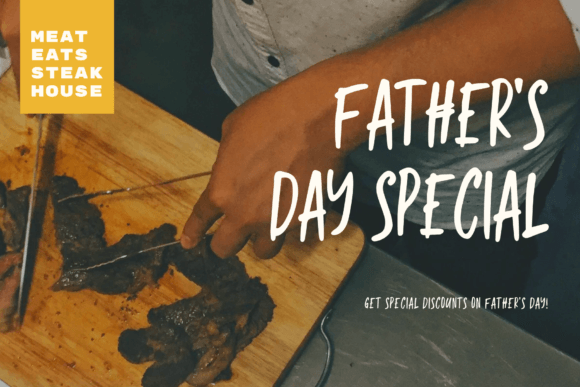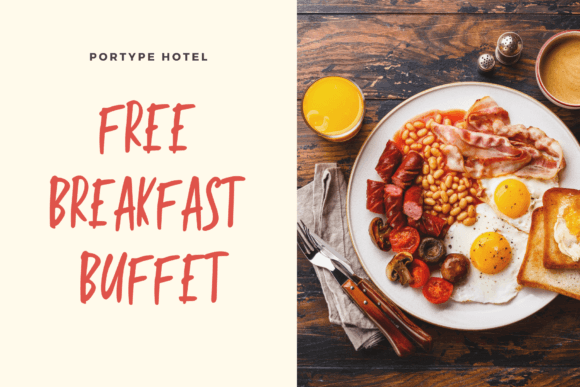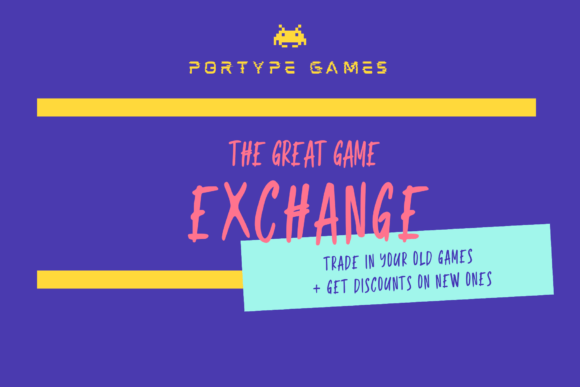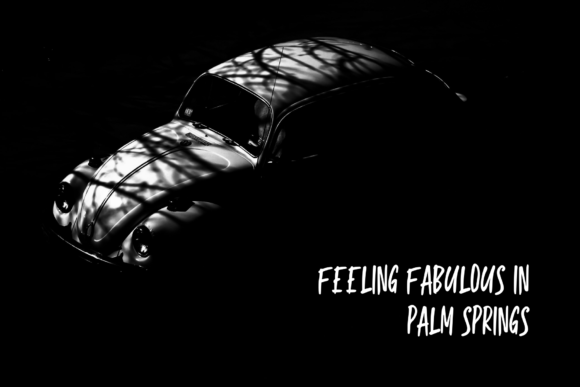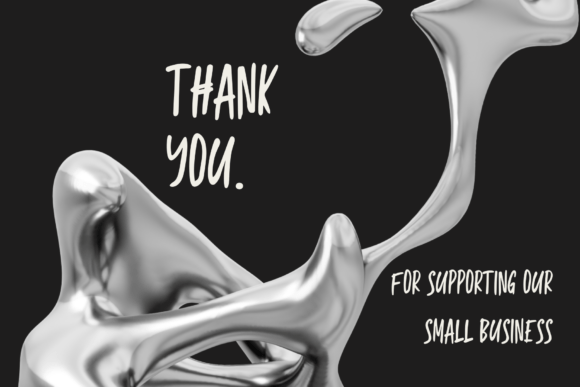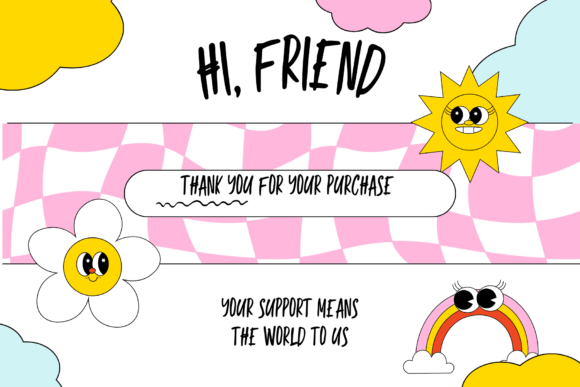
Discover the Unique Charm of Biang Kerok Font: A Handwritten Style Typeface
In the world of typography, fonts play a crucial role in conveying messages, expressing emotions, and creating visual identities. For designers and crafters seeking a typeface that embodies creativity, informality, and a dash of personality, Biang Kerok Font is an excellent choice. This handwritten style font features a unique and bold character that reflects a dynamic and passionate personality, making it perfect for a variety of creative projects.
The Distinctive Characteristics of Biang Kerok Typeface
Biang Kerok Typeface stands out with its distinctive handwritten style, characterized by bold lines, fluid strokes, and a charming irregularity. Each letter is crafted with a personal touch, giving the font a one-of-a-kind feel that is both eccentric and engaging. The unique character of Biang Kerok makes it an excellent choice for designs that require a touch of personality and creativity.
Suitable Applications for Biang Kerok Font
Biang Kerok Font is incredibly versatile, making it suitable for a wide range of creative projects. Some of the ideal applications for this typeface include:
- Posters and Flyers: Add a bold and eye-catching touch to your posters and flyers with Biang Kerok Font, making your message stand out and grab attention.
- Logo Design: Create a unique and memorable logo for your brand with Biang Kerok Typeface, which offers a personalized and eccentric feel.
- Social Media Designs: Elevate your social media presence with Biang Kerok Font, which adds a touch of creativity and informality to your posts, stories, and graphics.
- Branding and Packaging: Use Biang Kerok Typeface to create a distinctive visual identity for your brand, setting you apart from the competition.
Why Choose Biang Kerok Font?
Biang Kerok Font offers several benefits that make it an attractive choice for designers and crafters:
- Creativity and Expression: Biang Kerok Typeface allows you to add a personal touch to your designs, making every word feel alive and full of expression.
- Informal and Friendly: The font’s handwritten style creates a friendly and approachable feel, perfect for designs that require a more informal tone.
- Unique and Memorable: Biang Kerok Font’s distinctive character ensures that your designs stand out and leave a lasting impression.
Tips for Using Biang Kerok Font Effectively
To get the most out of Biang Kerok Typeface, consider the following tips:
- Pair with Contrasting Fonts: Combine Biang Kerok Font with simpler fonts to create visual contrast and hierarchy in your designs.
- Experiment with Colors: Take advantage of Biang Kerok’s bold character by experimenting with vibrant colors and gradients.
- Play with Size and Layout: Use Biang Kerok Font in various sizes and layouts to create visual interest and emphasize key messages.
Biang Kerok Font is a unique and versatile typeface that offers a fresh perspective for designers and crafters seeking to add a touch of personality and creativity to their projects. With its bold character, fluid strokes, and charming irregularity, Biang Kerok Typeface is perfect for a wide range of creative applications. By incorporating Biang Kerok Font into your designs, you’ll be able to create visually stunning and memorable pieces that showcase your creativity and style.